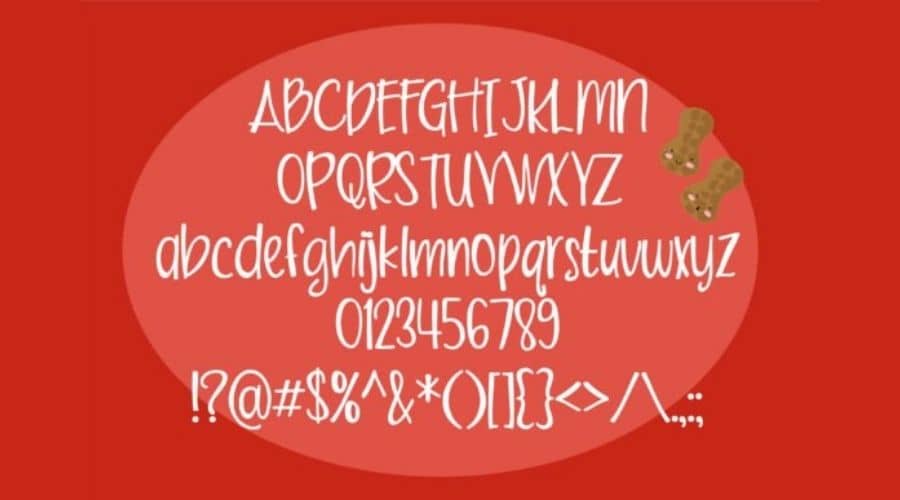
Butter Peanut Font
Introducing, Butter Peanut! a beautiful Script and Handwritten font. The Font is designed and published by dcoxy Medina Gregory on July 29, 2019. This handwritten Font has a joyful quality to it.